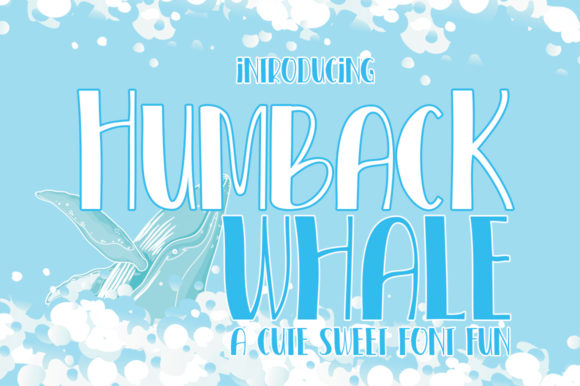
Introducing Humback Whale, a Bold and Majestic Font:
Embark on a whimsical journey with Humback Whale, an extraordinary font family that captures the essence of the sea's most captivating creatures. Its every curve and stroke evoke the grace and fluidity of the mighty humpback whale, leaving an unforgettable impression on your creative endeavors.
Unleash your imagination and dive into a world of boundless possibilities with Humback Whale. Whether it's a heartfelt message, a captivating logo, or an artistic masterpiece, this font will elevate your designs to new heights. Let your words dance across the page with a touch of elegance and a hint of playfulness.
Create designs that whisper of the ocean's secrets, where gentle waves meet sandy shores. Allow Humback Whale to guide your creativity, transforming your ideas into visual symphonies. It's perfect for wine labels, adding a touch of sophistication to every bottle. Or, let it grace your wedding invitations, infusing them with a timeless charm.
Dive into the depths of your artistic vision, and let Humback Whale be your faithful companion. Its unique playfulness will add a spark of joy to your crafting projects, while its bold presence will command attention in marketing materials.
With Humback Whale, you'll embark on a creative adventure where imagination reigns supreme. Its all-caps design exudes confidence and strength, while its handwritten style lends a personal touch to your creations. Discover the beauty of simplicity and let your designs speak volumes.
Join the artistic expedition with Humback Whale, and immerse yourself in a world where creativity flows like the ocean's tide. Let your words and designs take flight, leaving a lasting impression on all who encounter them.